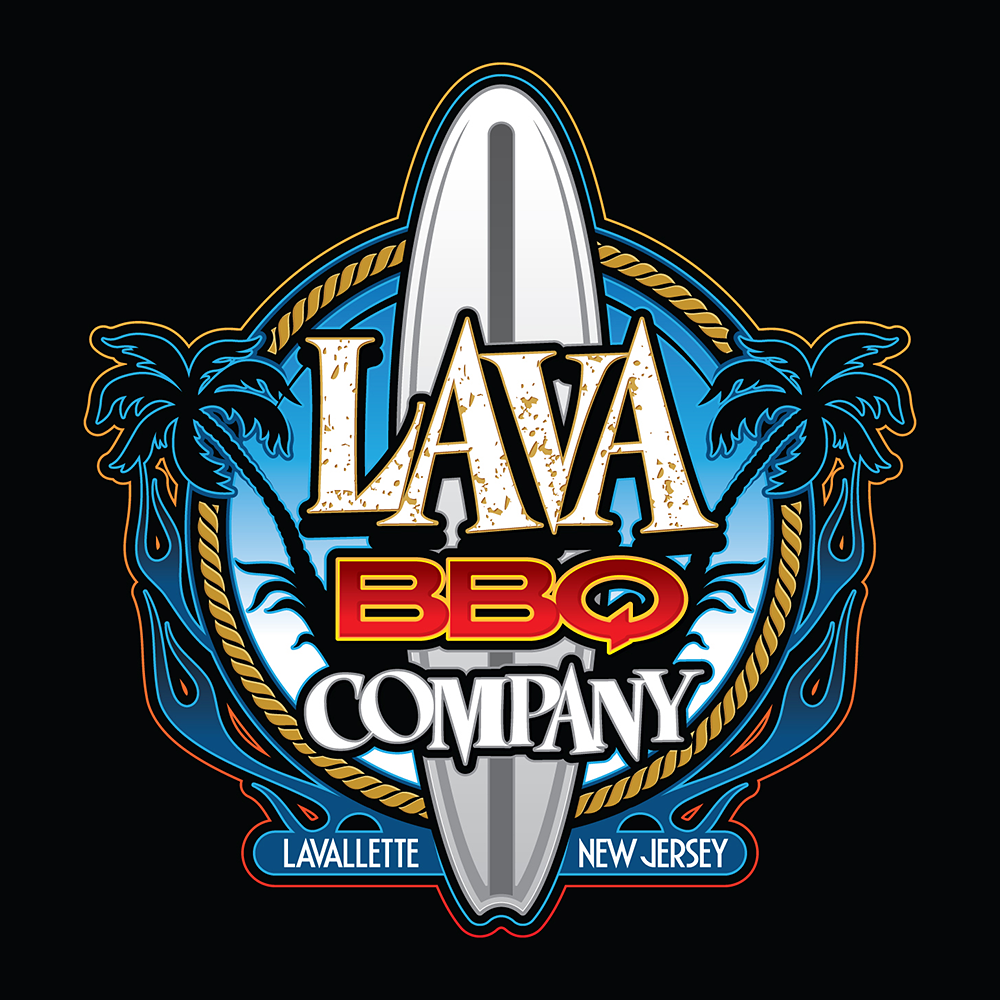
A revision of the original Mister Kooky and Mister Spooky fonts released in 2001, these new fonts have been completely redrawn and feature lowercase letters.
Varying letter heights make this a fun to use style, perfect for casual designs. You'll be surprised at how well the letters interact with each other. Set includes 2 fonts: Mister Kooky 2 & Mister Spooky 2. You may also like: Hambone.